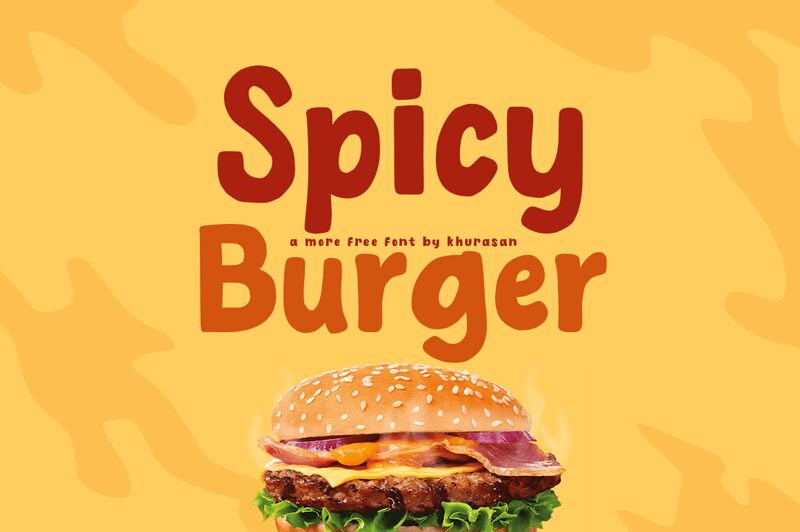
Spicy Burger
Spicy Burger, crafted by the talented Khurasan, is a bold and vibrant display font that adds a playful touch to your creative projects.
With its cartoon-inspired style, this font is perfect for children's books, animated movies, and comic strips. Its bold weight ensures that your message stands out with confidence and impact. Let Spicy Burger bring life and excitement to your designs - whether it's logos, posters, or packaging - this font will surely add a delightful twist to any project.